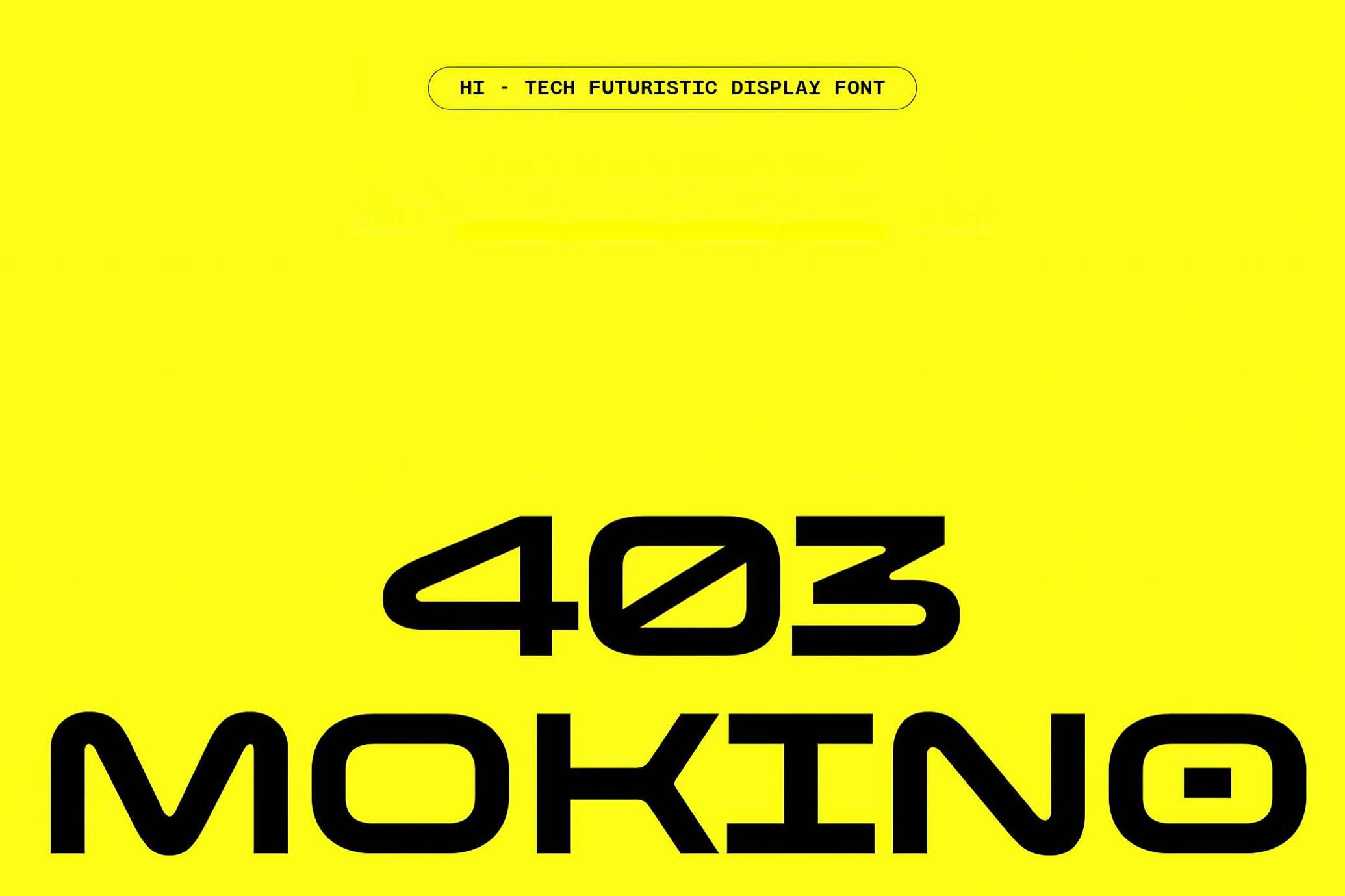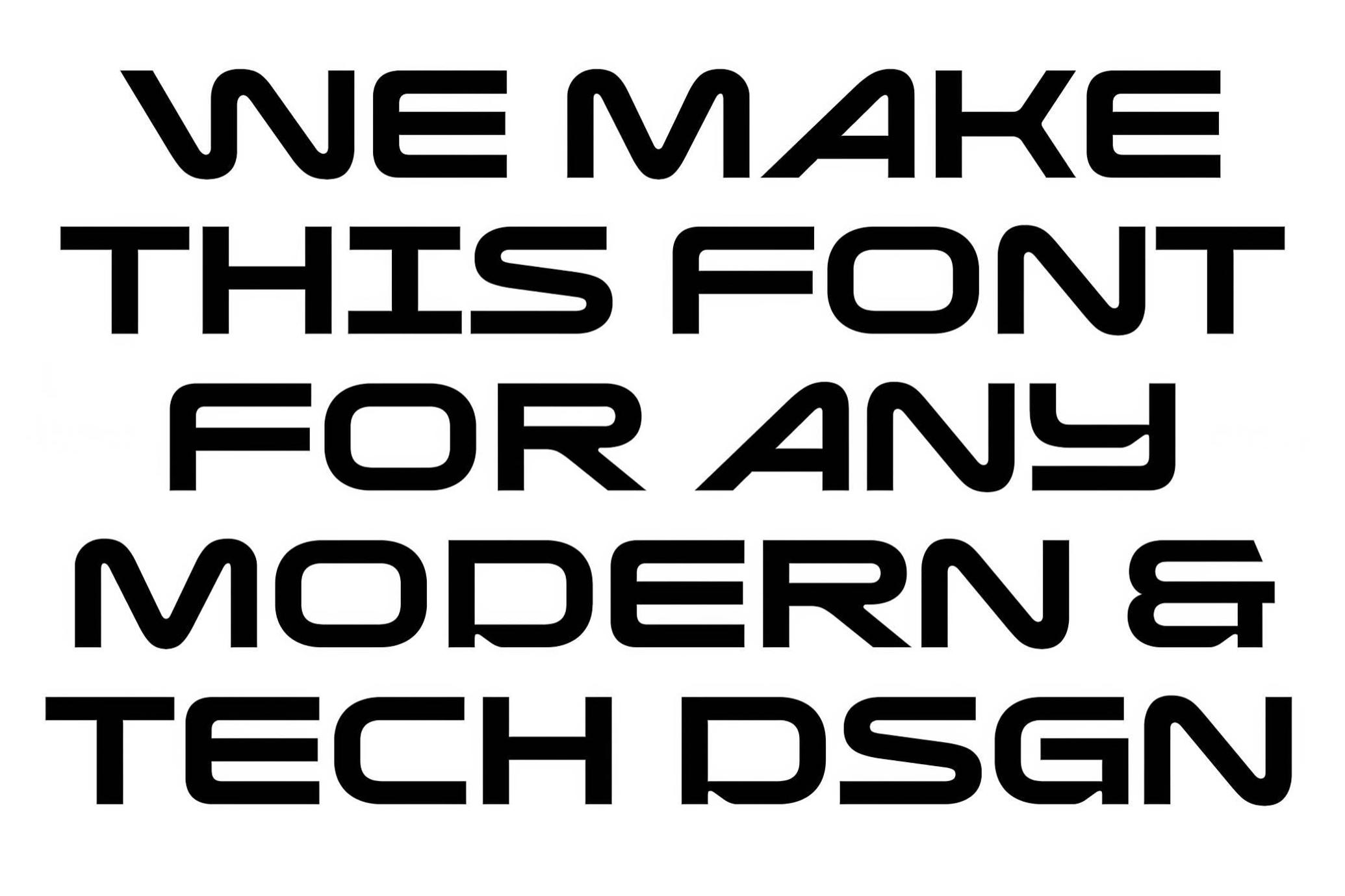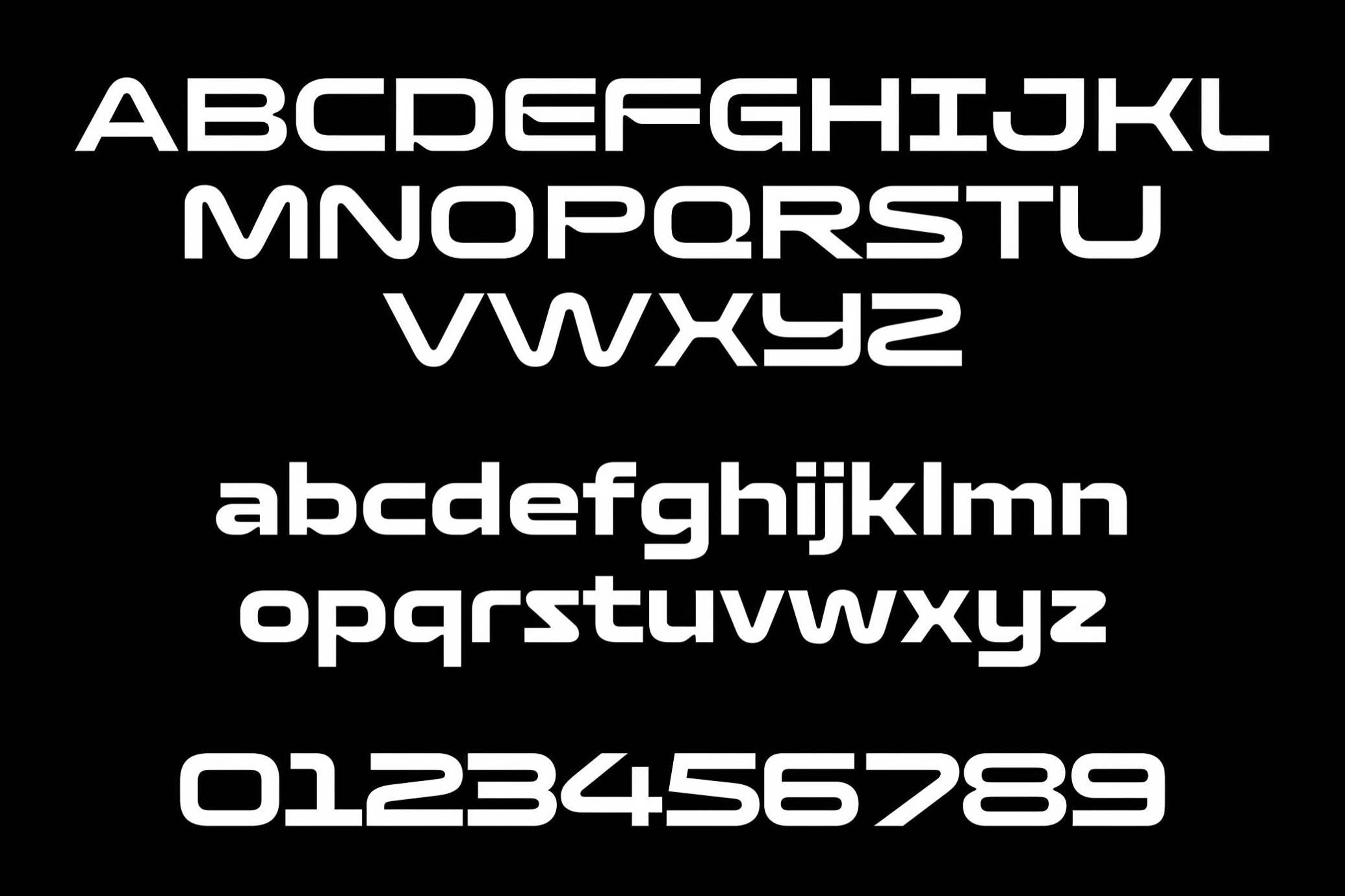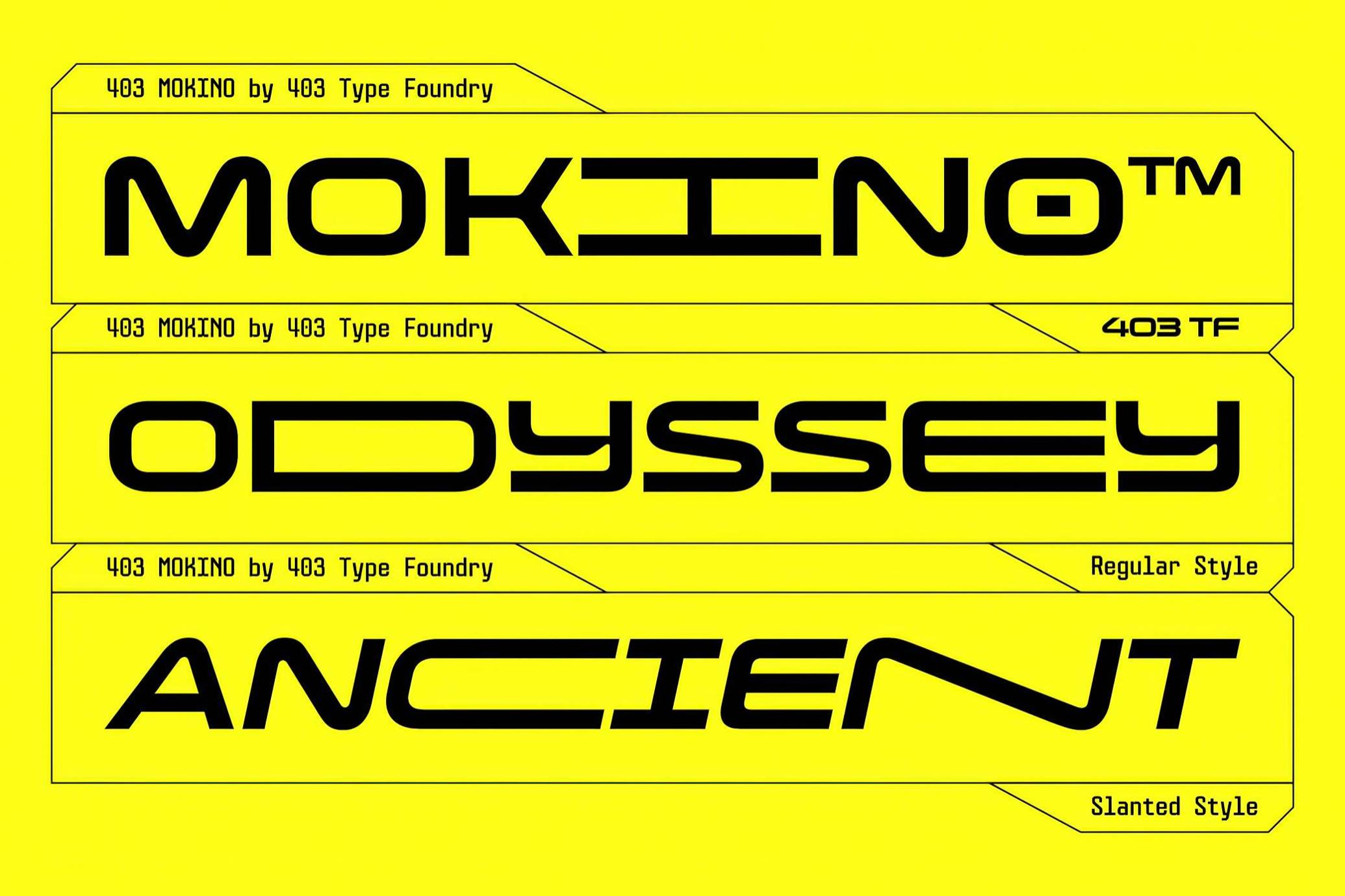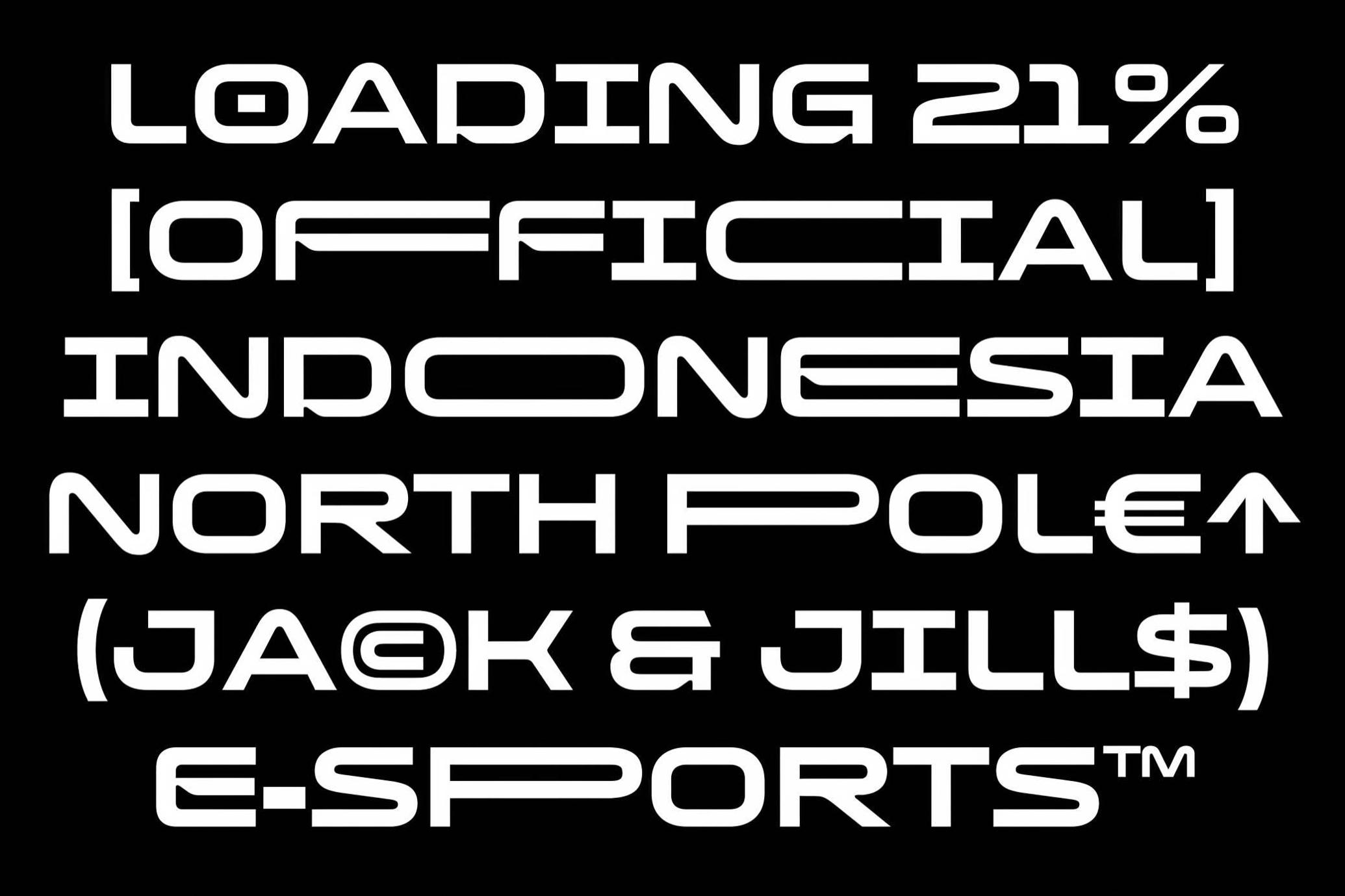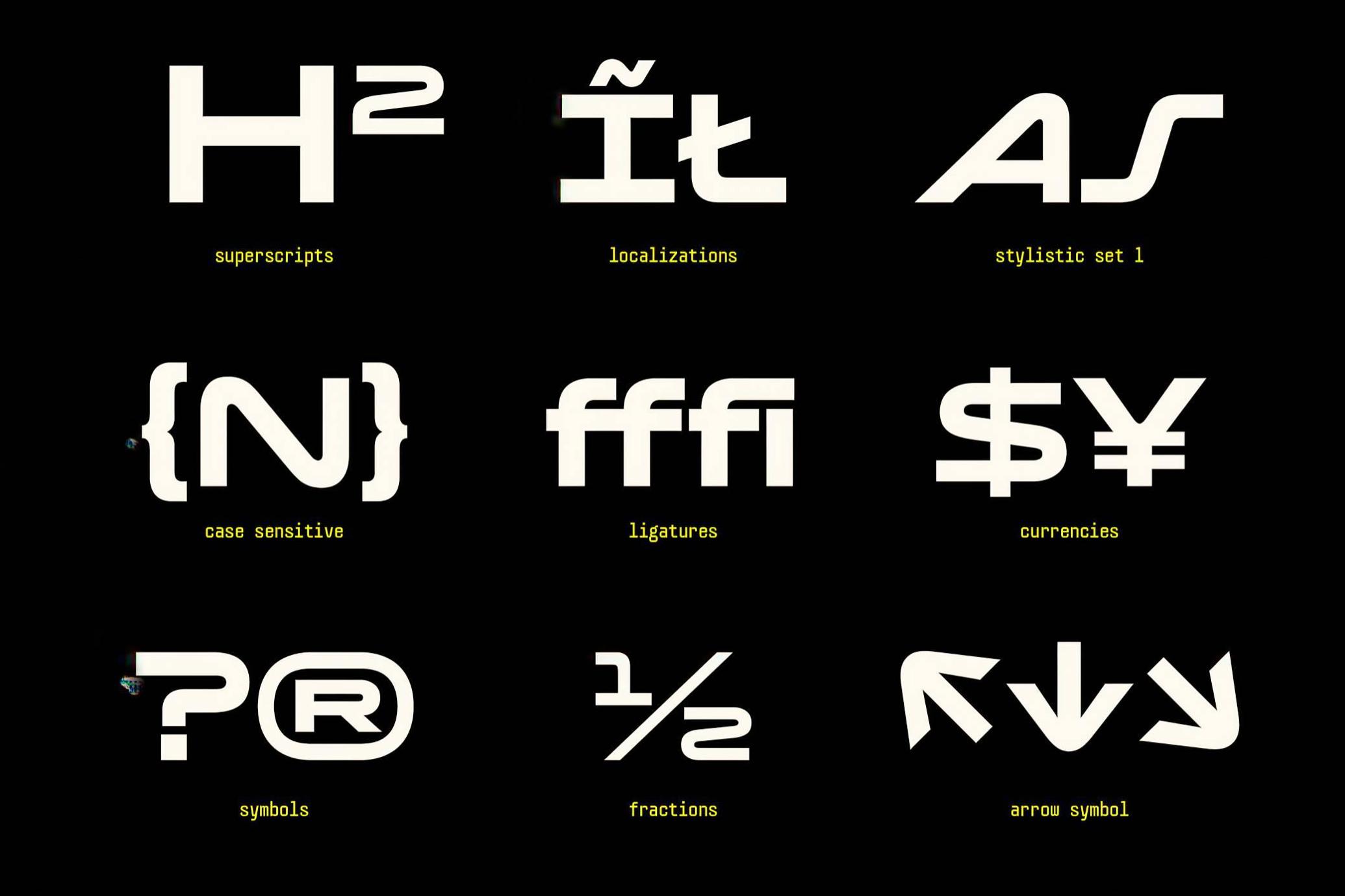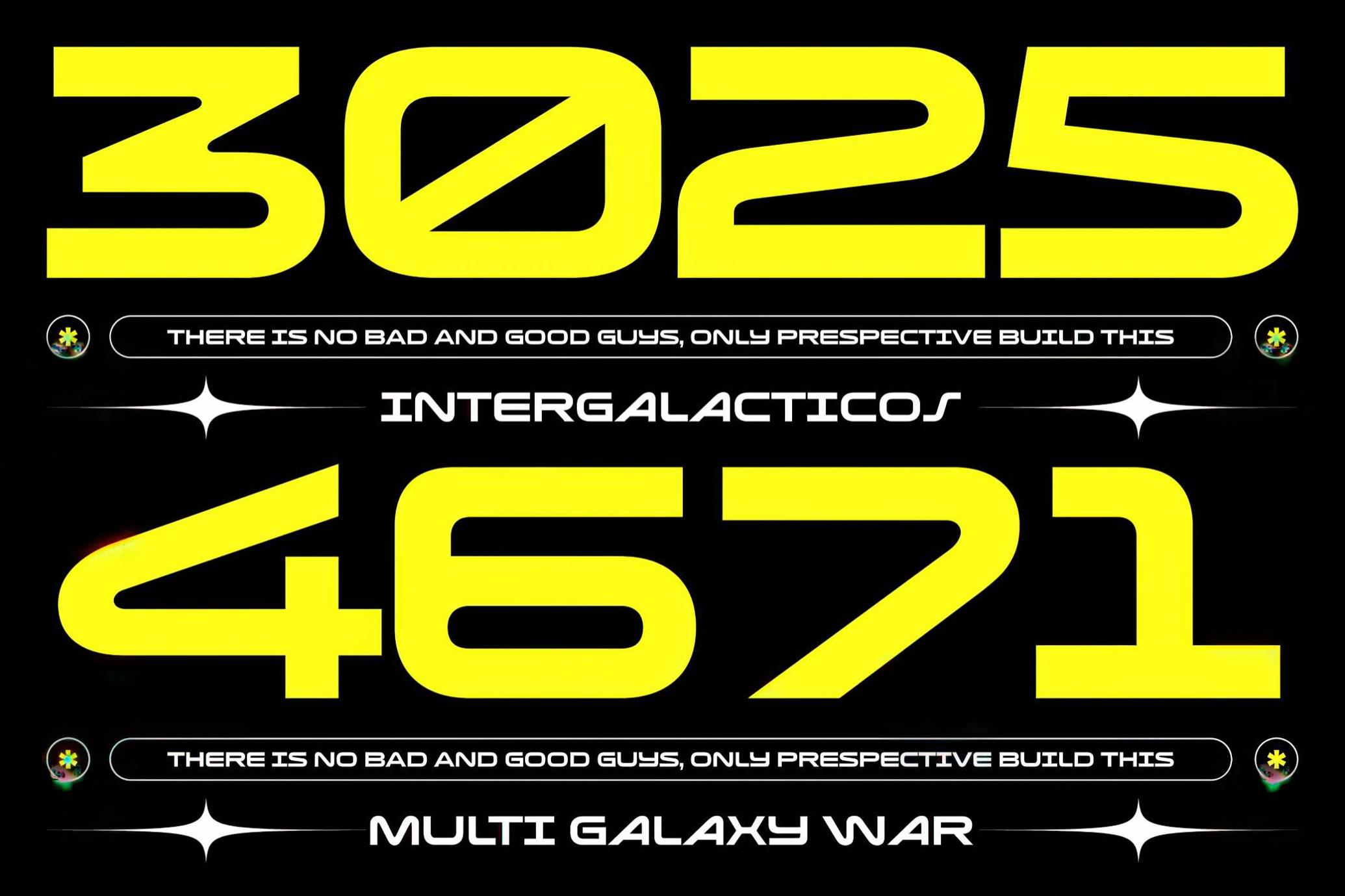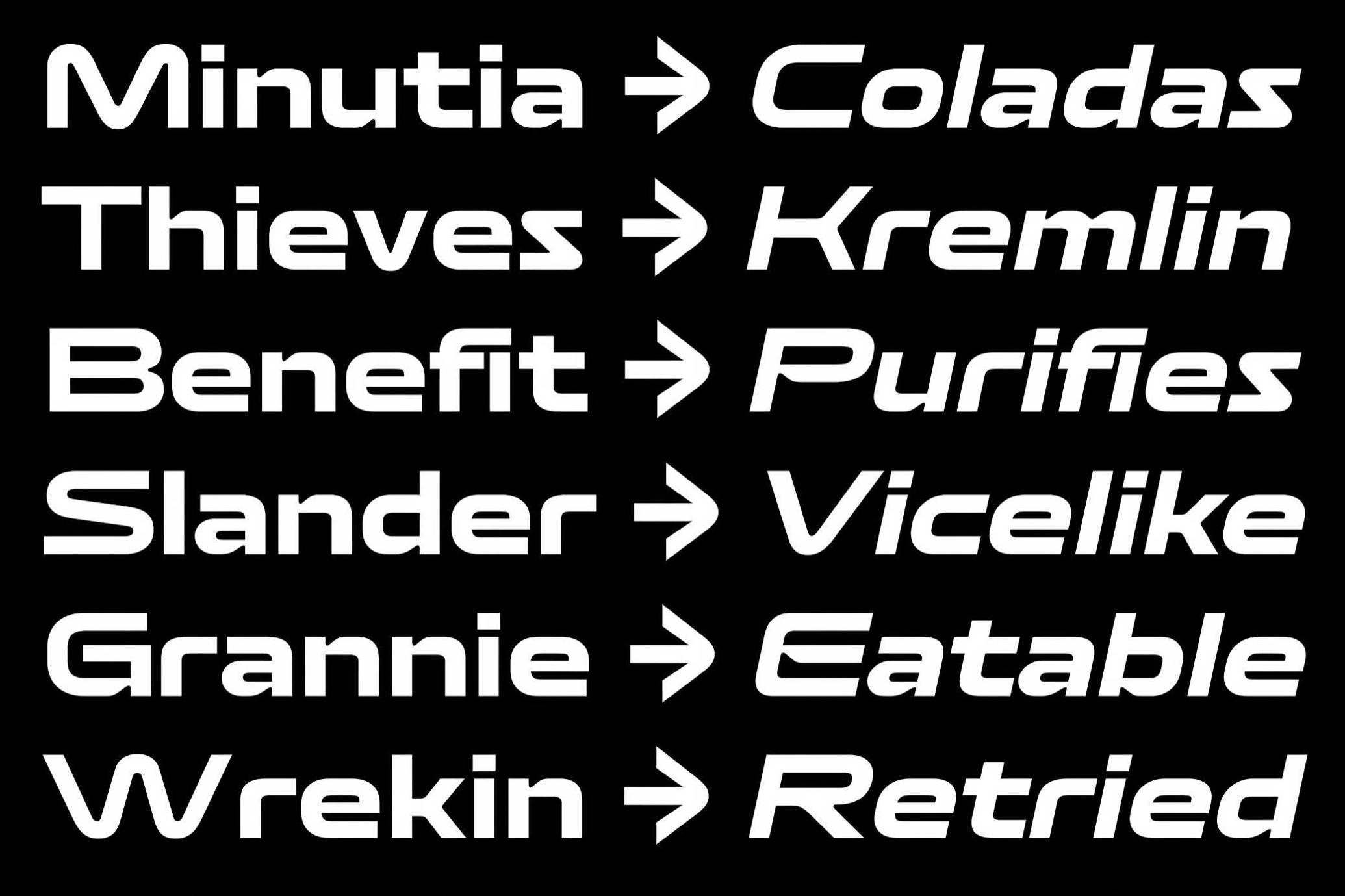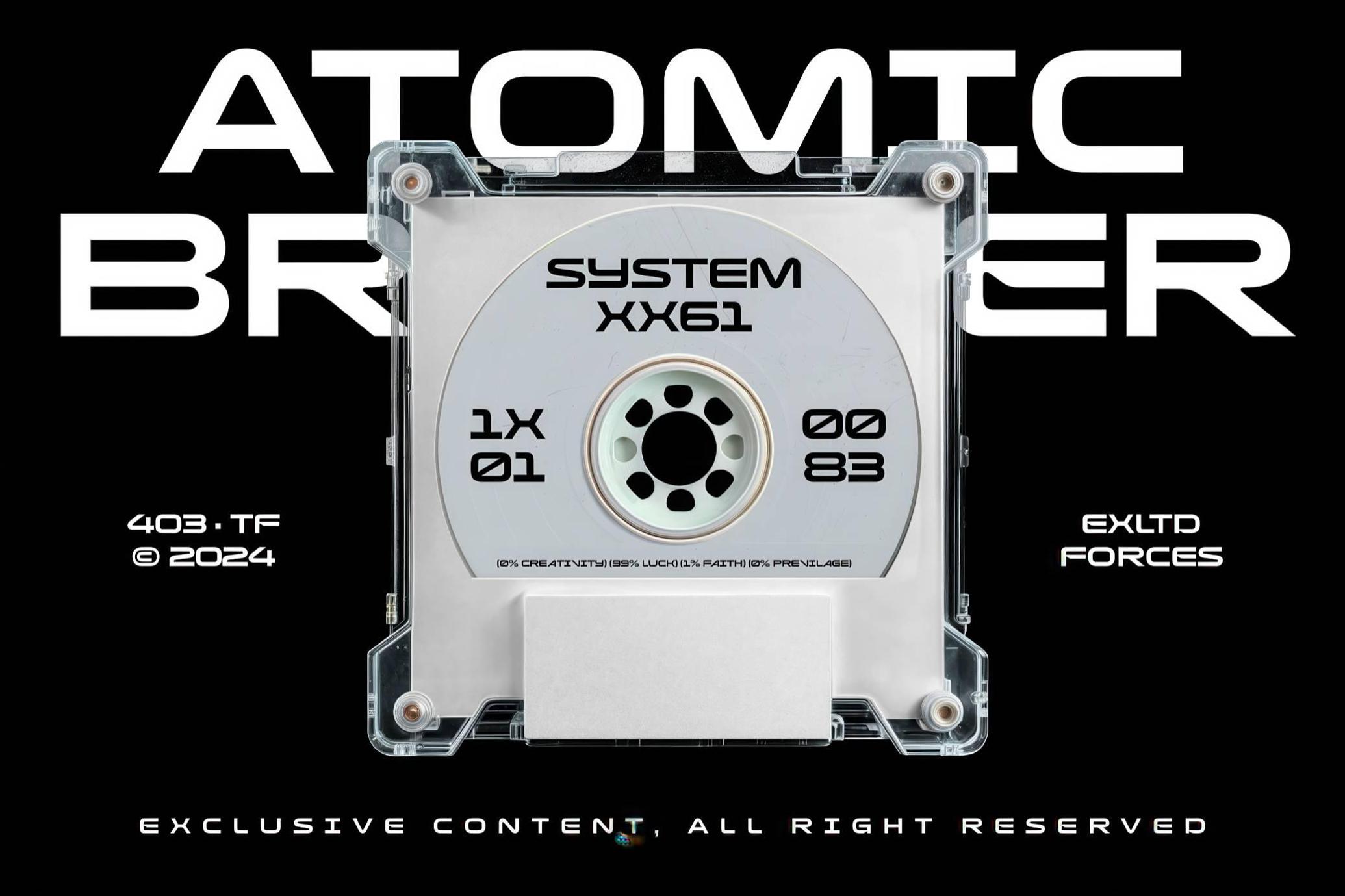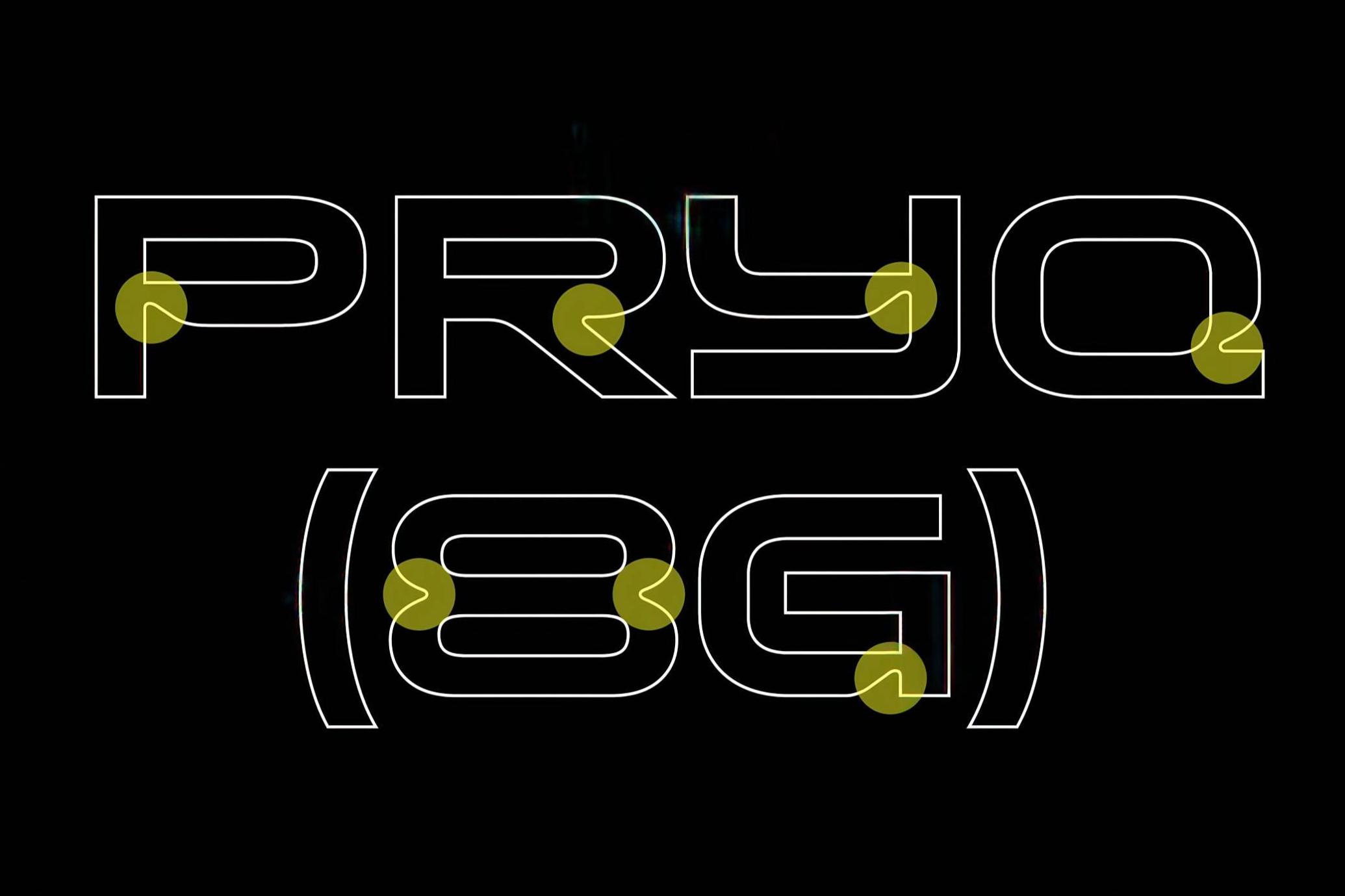
403 Mokino — Hi-Tech Futuristic Display Font
If typography could drive, 403 Mokino would pilot a hovercraft. This slick, sci-fi-inspired display font is built for the future-forward designers. Its geometric curves and precision-cut angles strike the perfect balance between agility and strength, while the wide proportions lend every word a confident presence. Mokino adapts seamlessly to digital and print formats — from AI startups to indie game titles. It is bold enough for branding, clear enough for interface, and unmistakably modern across the board. With full uppercase/lowercase sets, multilingual support, and the cool-factor baked in, it’s the font that says “next-gen” without saying a word.